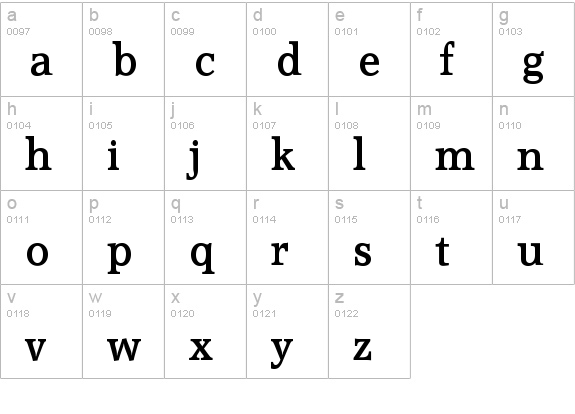
Accolade-Medium Font Details
Accolade-Medium is a balanced, medium-weight variant in the Accolade typeface family \xE2\x80\x94 well suited to sub-headlines, navigation, and balanced editorial work.
Accolade-Medium is a versatile and elegant font that exudes sophistication and charm. With its balanced proportions and clean lines, this typeface is perfect for a wide range of design projects, from branding to editorial design. The medium weight of the font strikes the perfect balance between readability and style, making it ideal for both display and body text. What sets Accolade-Medium apart is that it is available for free download at FontsMarket.com, allowing designers and creatives to access this high-quality font without any cost. Whether you're working on a professional project or a personal endeavor, Accolade-Medium is a reliable choice that will elevate your design with its timeless appeal. Download it today and add a touch of sophistication to your next project.